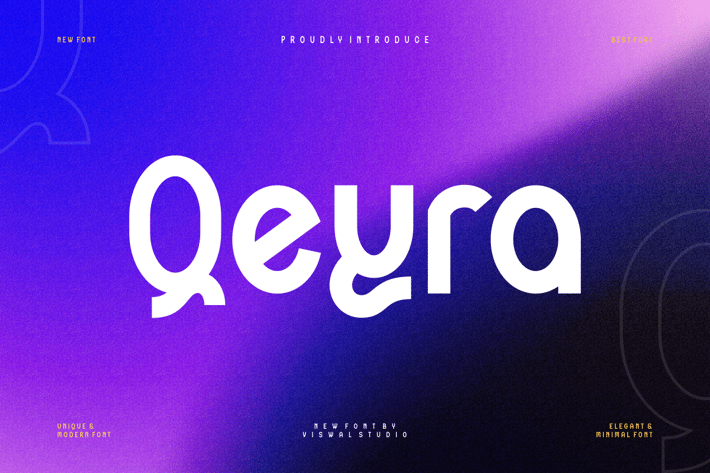
Qeyra - Modern Logo Font
Presenting Qeyra - Font is suitable for badge, labels, logo, branding, magazine, poster and etc. Our fonts have Uppercase & Lowercase, Numeral & Punctuation, Multilingual support and Opentype Features. For Amazing designs you can mix with other fonts as a complement.